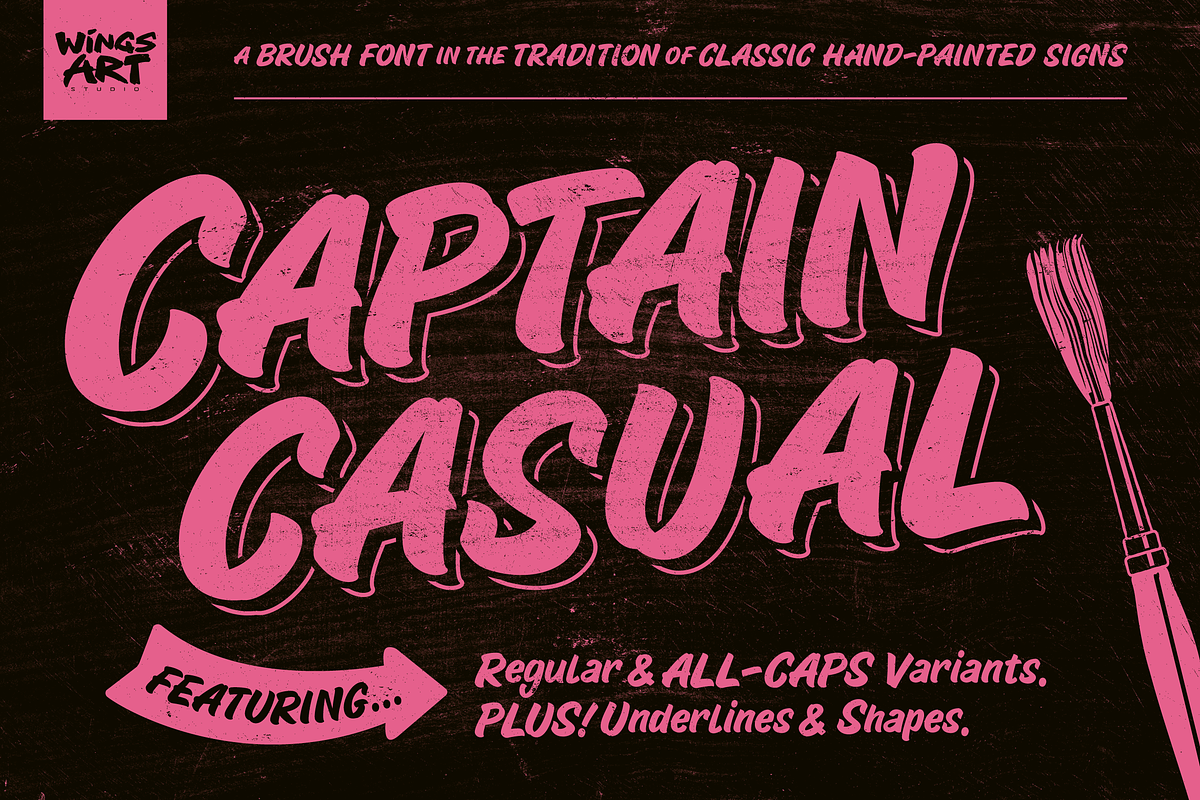
Captain Casual – A Sign Painter Font Free Download is a bold and breezy typeface inspired by classic hand-painted signage. With a fun, laid-back feel and vintage flair, it’s perfect for retro branding, restaurant menus, posters, product labels, and creative display projects.
With its expressive strokes and charismatic style, Captain Casual – A Sign Painter Font Free Download captures the spirit of traditional signwriting with a modern twist. Whether you're designing for a café, a craft beer label, or a quirky apparel line, this font delivers personality and punch. Try it out in your next mockup to feel its charm—then upgrade to a commercial license when you're ready to make your work shine.